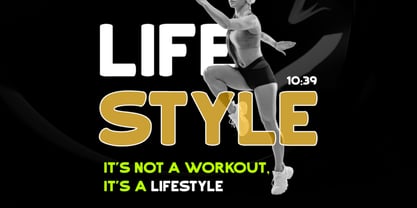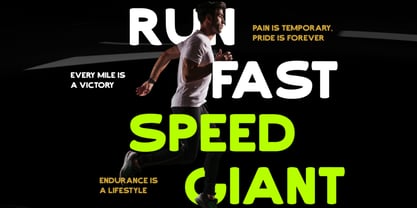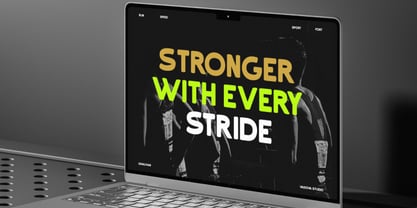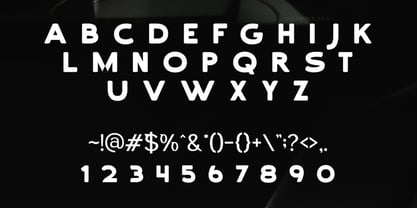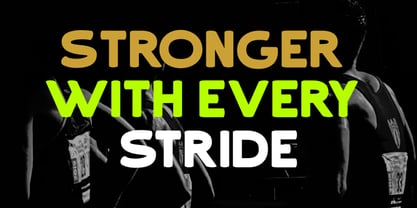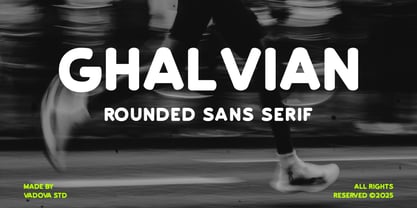
Ghalvian
von Vadova Std
Die Schriftfamilie Ghalvian entworfen und von Vadova Std veröffentlicht. Ghalvian enthält 1 Stile. Mehr über diese Familie
Ghalvian is a bold and rounded sans serif font that blends modern athleticism with clean, friendly curves. Designed for high-impact visuals, it exudes energy, confidence, and motion—making it perfect for sports branding, active lifestyle campaigns, fitness, and urban poster designs. The wide stance and consistent rhythm make it both attention-grabbing and easy to read, even from a distance. With its sharp yet playful forms, Ghalvian brings versatility for titles, quotes, and digital headlines that demand a bold statement.